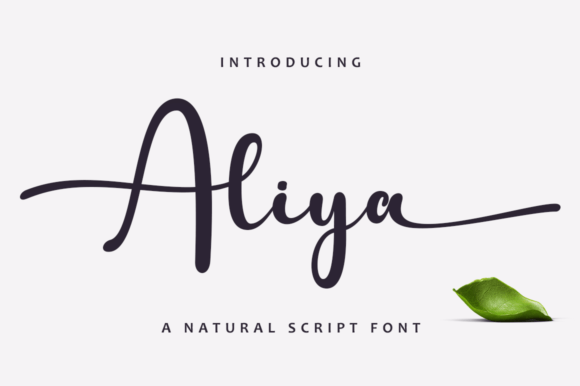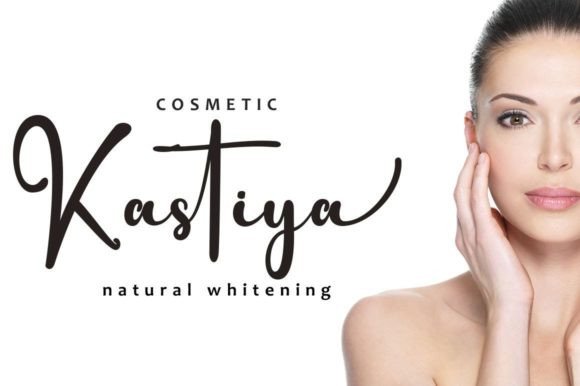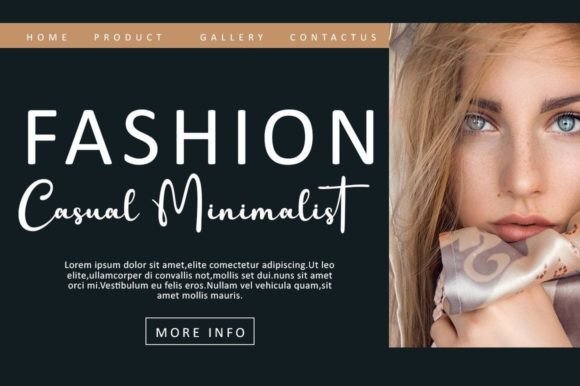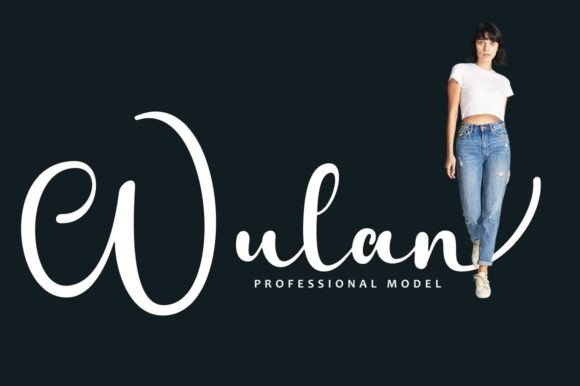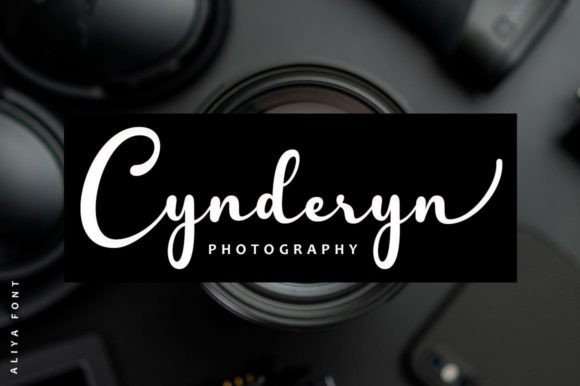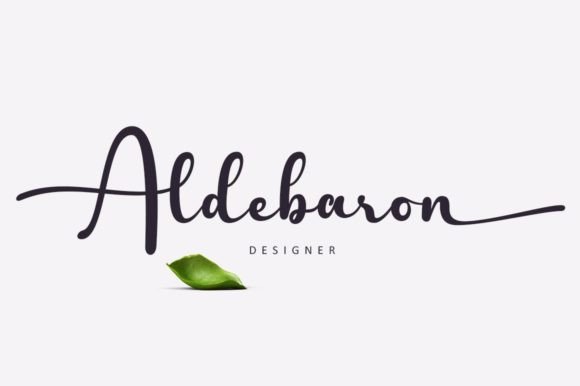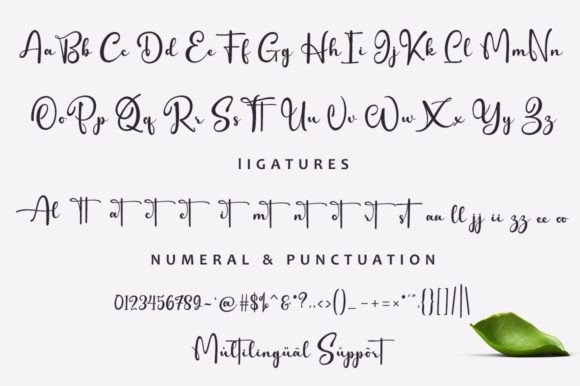
Aliya Font
About Aliya Font
Aliya is a gracefully flowing script font, characterized by its elegant touch, making it a perfect choice for your favorite projects. The font’s distinct and timeless style invites you to fall in love with its visual allure and use it to create spectacular designs that leave a lasting impression.
The flowing nature of Aliya’s script adds a sense of sophistication to your designs. Each letter is crafted with precision, creating a seamless and elegant flow that contributes to the font’s overall aesthetic appeal. This makes Aliya versatile, suitable for a range of projects, from formal invitations to branding.
The elegant touch of Aliya sets it apart, making it more than just a font—it becomes a statement in itself. Its timeless style ensures that it can adapt to various design trends, making it a reliable choice for projects that demand a classic and refined look.
Aliya is designed to enhance the visual appeal of your creations. Whether you’re working on invitations, branding, or any other design project, the font’s distinct style adds a layer of sophistication that elevates your work. Its versatility allows it to be used across different contexts while maintaining its timeless charm.
Embrace Aliya as your go-to font for creating spectacular designs. Let its flowing script and elegant touch be the driving force in your creative projects, ensuring that your designs stand out with a distinct and timeless style. Whether used for formal or contemporary designs, Aliya has the ability to bring a touch of sophistication and beauty to your favorite projects.